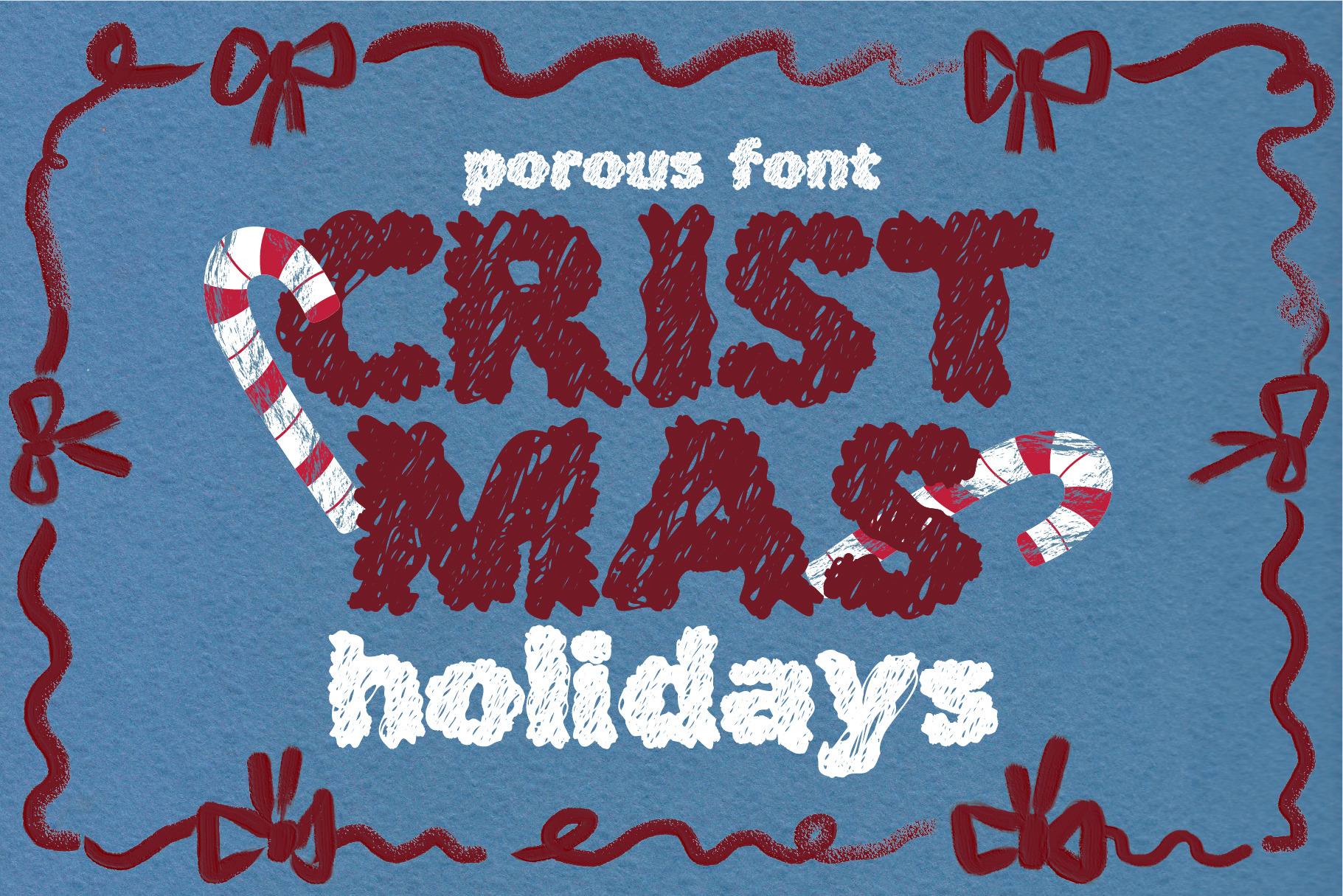
Porous handwritten winter font
I am glad to present a cool airy font- POROUS
an unusual hand-drawn font ,ideal for typographic layouts, invitations, social media and website design, logos, etc. Your project will always stand out from others and will always attract attention. With this font, you can always create something unique and unique. Try it now )